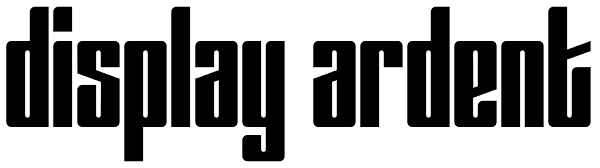
Display Ardent
Display Ardent is a display font not intended for text use. It was designed specifically for display, headline, logotype, branding, and similar applications. Display Ardent has the lowercase alphabet only, there is no uppercase alphabet. For...